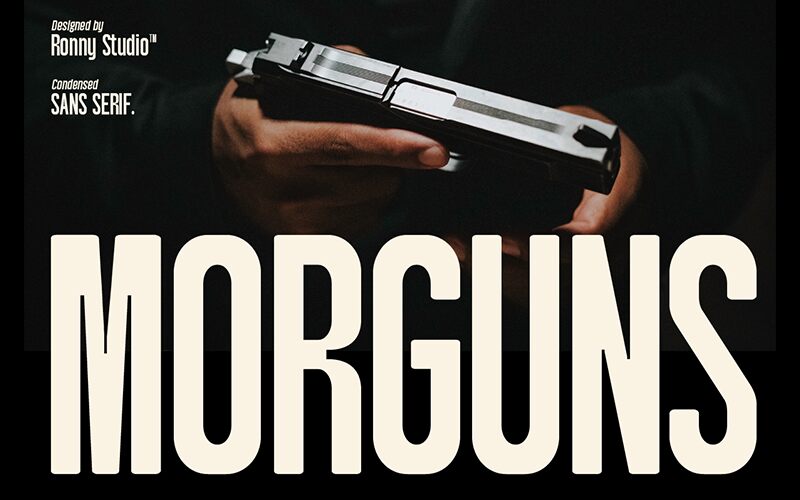
Morguns Condensed, part of the Morguns font family designed by Ronny Studio, is a sleek and modern sans serif typeface with an extra-condensed width.
This font is perfect for projects that require a clean and professional look, such as corporate presentations, business cards, and website headers. Its condensed nature allows for space-saving typography without compromising legibility. With Morguns Condensed, your designs will exude sophistication and elegance while maintaining a contemporary edge.